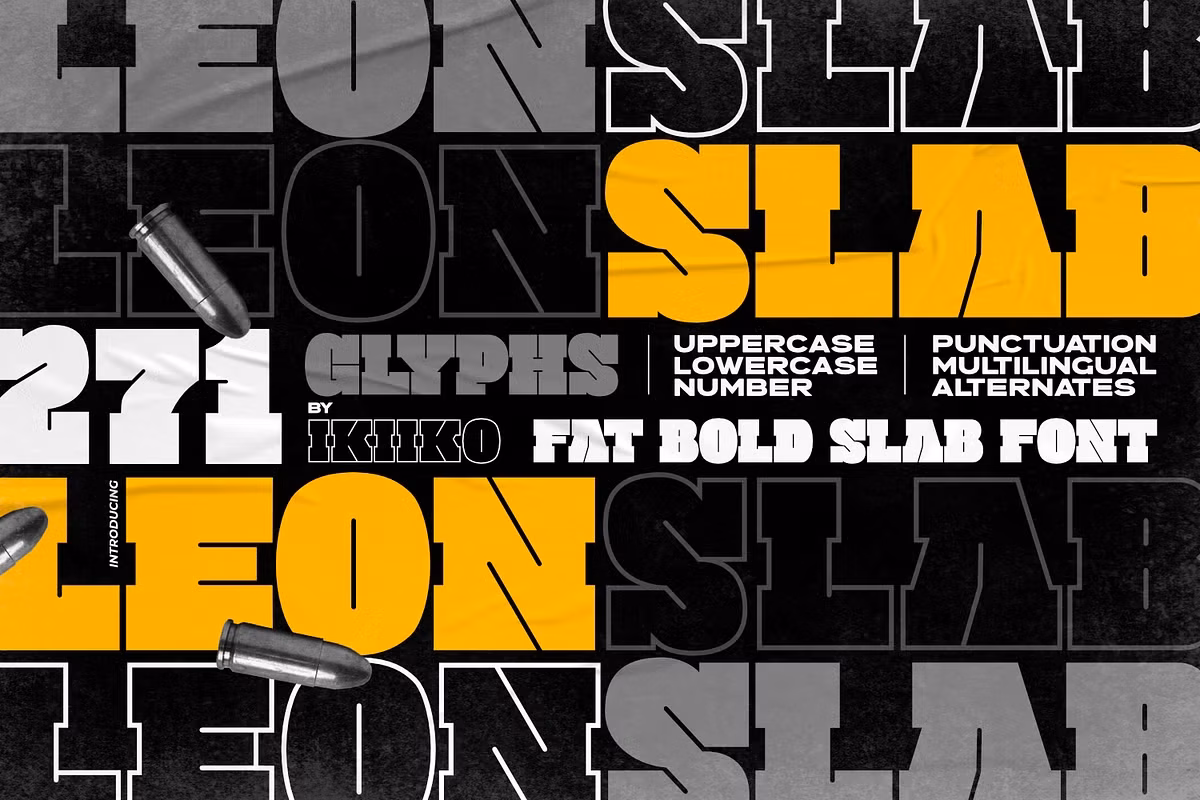
Leon Slab - Fat Bold Slab Font Free Download
Leon Slab – Fat Bold Slab Font Free Download
Leon Slab – Fat Bold Slab Font Free Download is a powerful and confident typeface designed to make a bold statement. With thick block-style serifs, chunky letterforms, and strong vertical stress, Leon Slab is perfect for posters, logos, sports branding, packaging, signage, and editorial headlines that need maximum impact and clarity.
Its no-nonsense design gives Leon Slab – Fat Bold Slab Font Free Download a sense of authority and presence, while its bold weight and all-caps style ensure it holds attention in any layout. Despite its strong look, it maintains readability and balance—making it a great choice for both modern and vintage-themed designs.